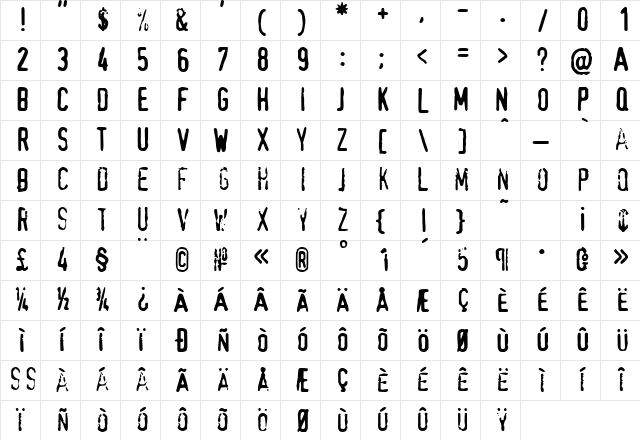
TopSecret Regular Free Font
Design Context for TopSecret
TopSecret is a composed and adaptable typeface that performs quietly and consistently across a wide range of design contexts.